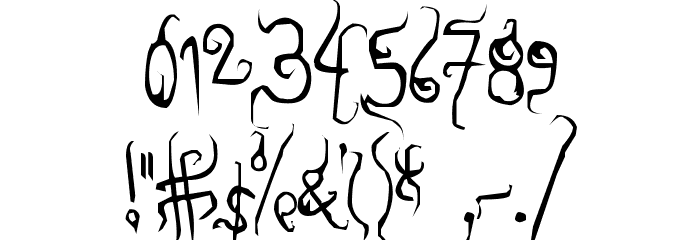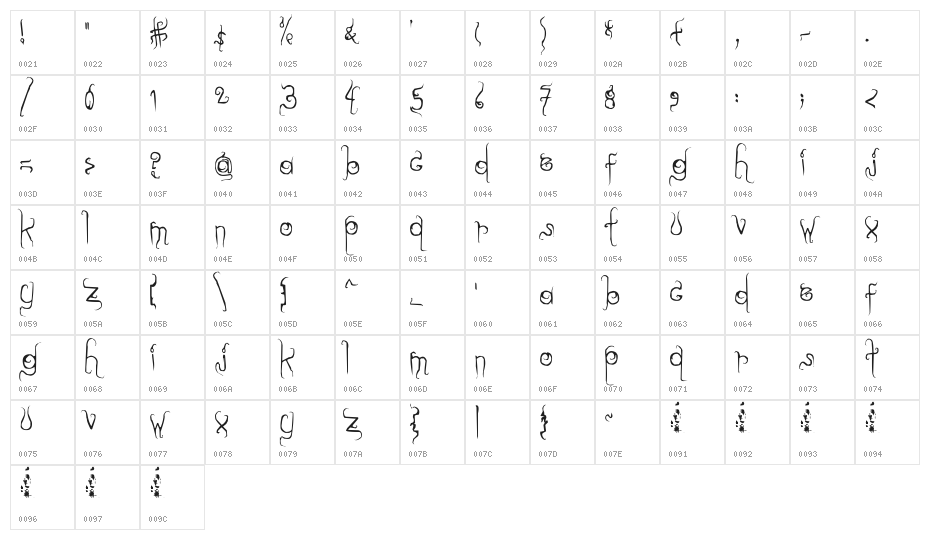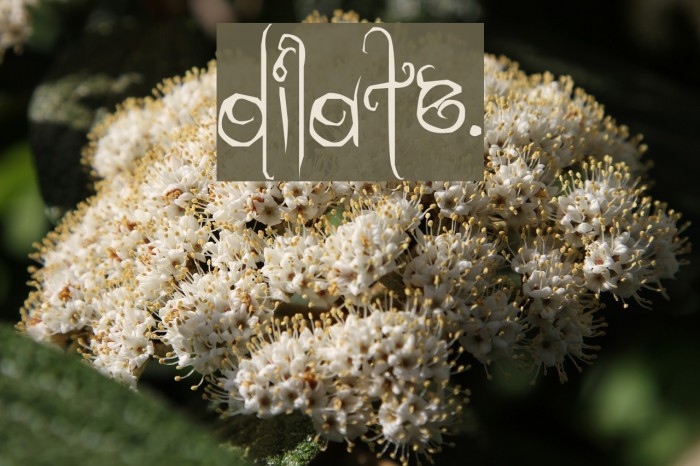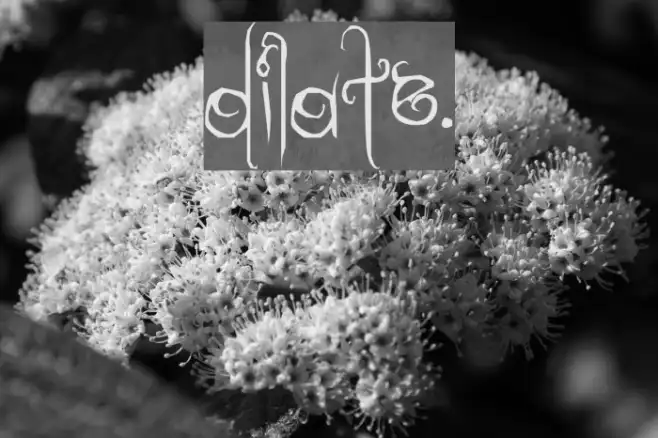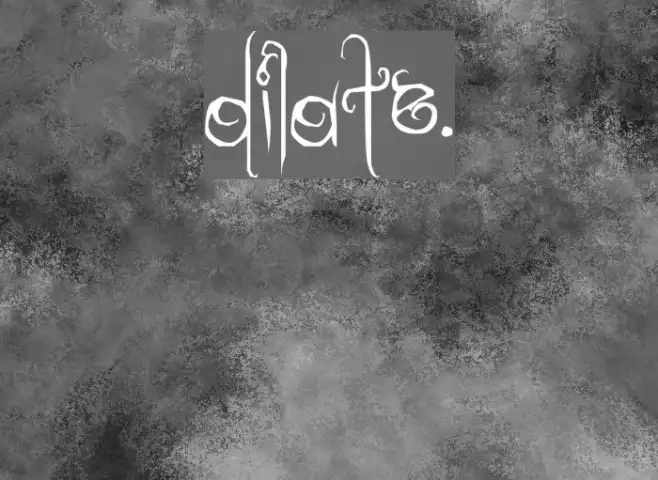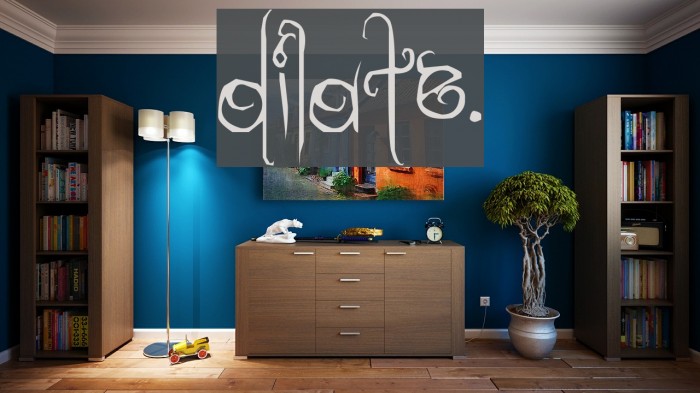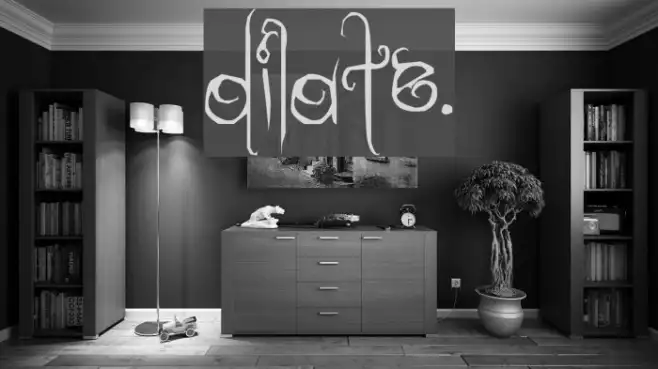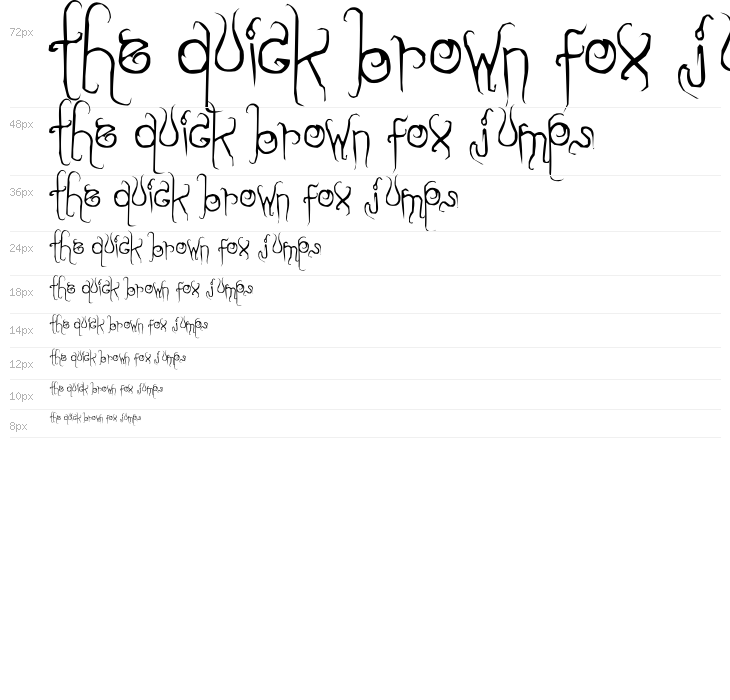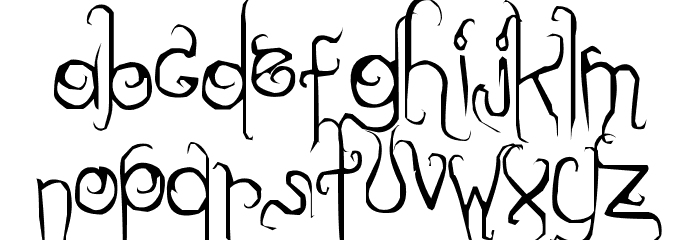
dilate. Font
dilate. Description
This font features a unique and artistic design with elongated and curved strokes, giving it a whimsical and slightly gothic appearance. The characters are highly stylized, with exaggerated ascenders and descenders, creating a sense of movement and fluidity. The uppercase and lowercase letters maintain a consistent style, while the numbers and special characters integrate seamlessly with the overall aesthetic. This font's distinctive look makes it stand out, offering a creative and unconventional option for various design projects.
| Use Case | Logos, Posters, Artistic Branding |
| Proposed Projects | Ideal for creative projects such as album covers, posters, fantasy-themed designs, and artistic branding. |